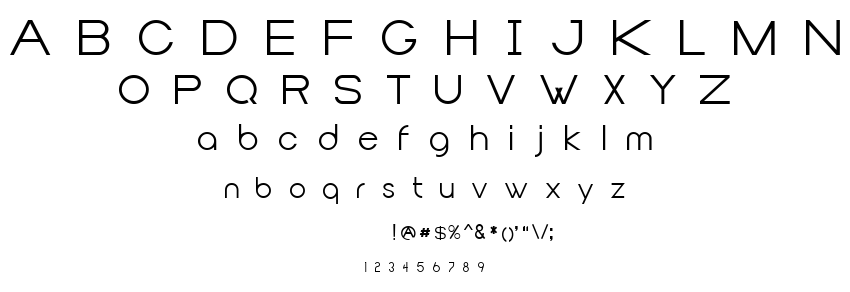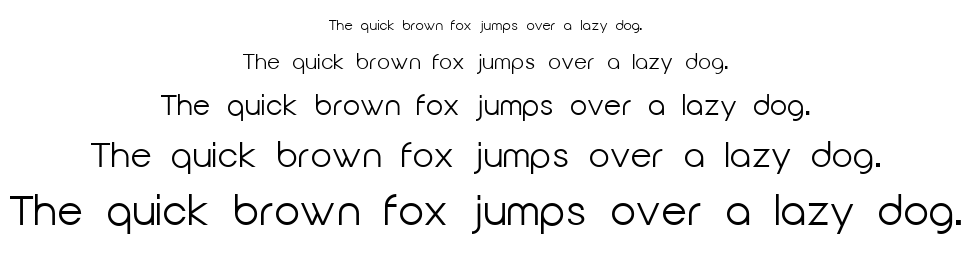
DUMA Font is finished. DUMA is a sans that is characterized with long legs and very extended. This is a major accomplishment for me since for a long time I wanted to create my own font. Each character was individually made in Illustrator using basic geometric shapes.